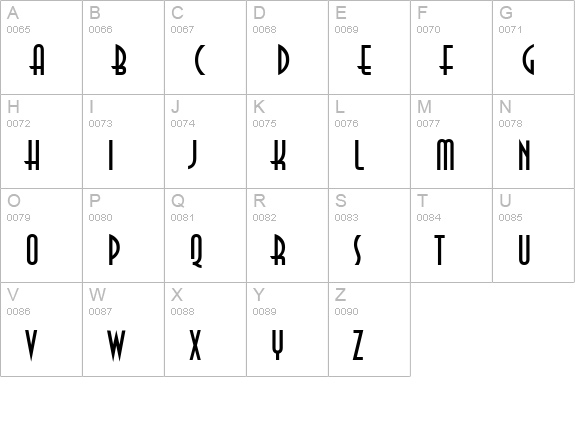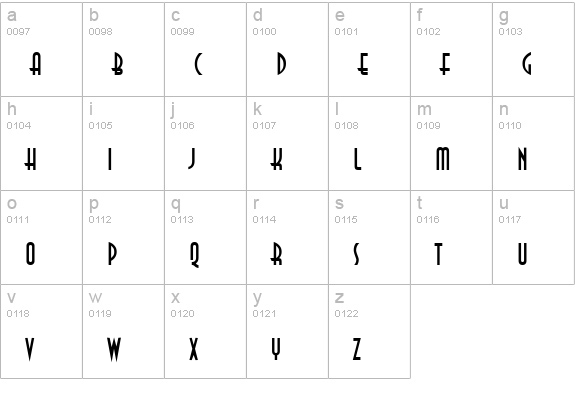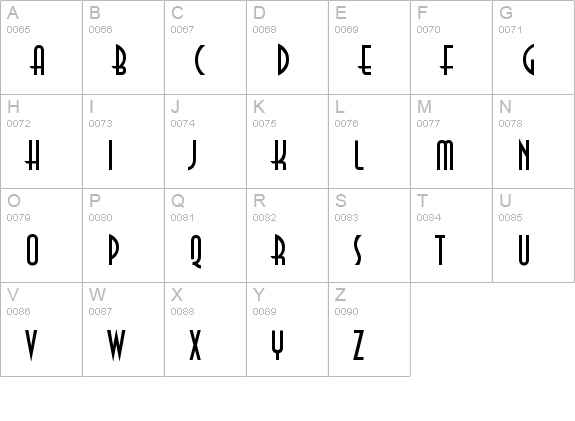
Fidelio Font Details
Fidelio font is a stunning typeface that exudes elegance and sophistication. Its classic yet modern design makes it perfect for a wide range of design projects, from branding to editorial design. The sleek lines and graceful curves of Fidelio font give any text a touch of refinement and style. What's even better is that Fidelio font is completely free to download at FontsMarket.com. This means you can easily access this beautiful typeface and use it in your projects without any cost. With its timeless appeal and versatile nature, Fidelio font is a must-have addition to any designer's font collection. Download it now and elevate your designs with this exquisite typeface.